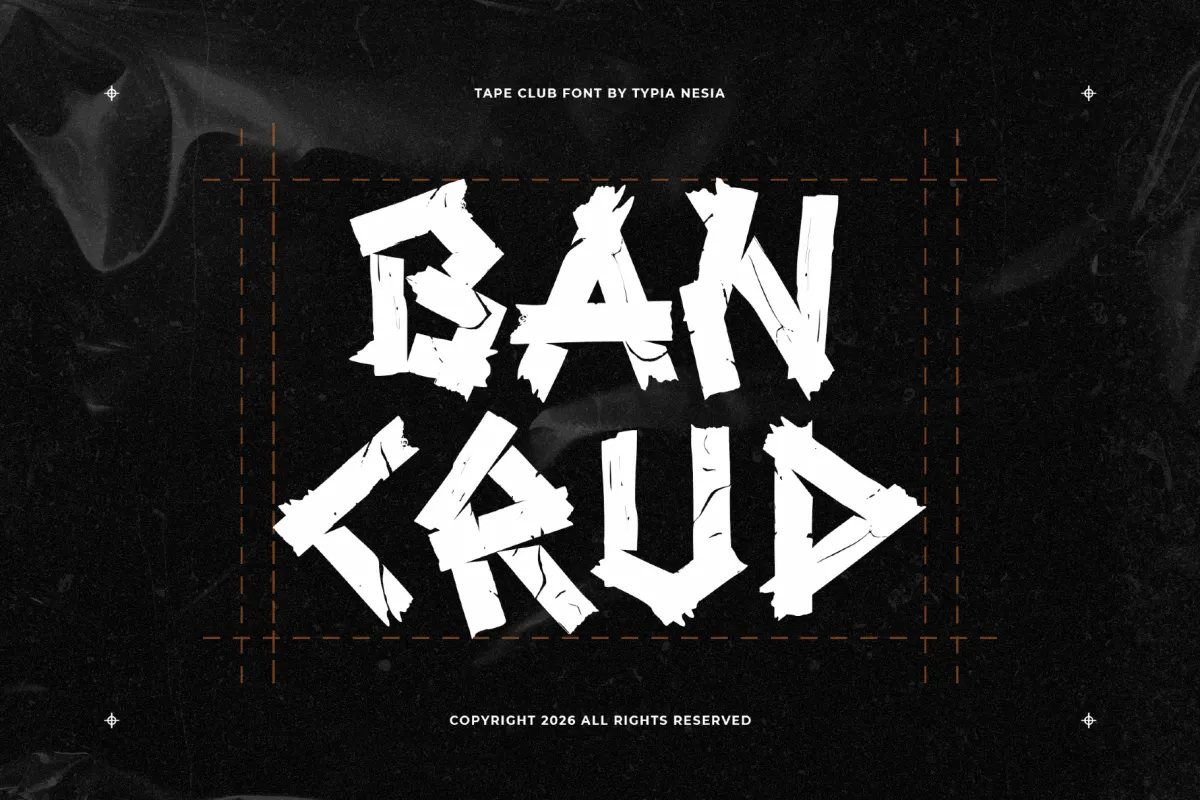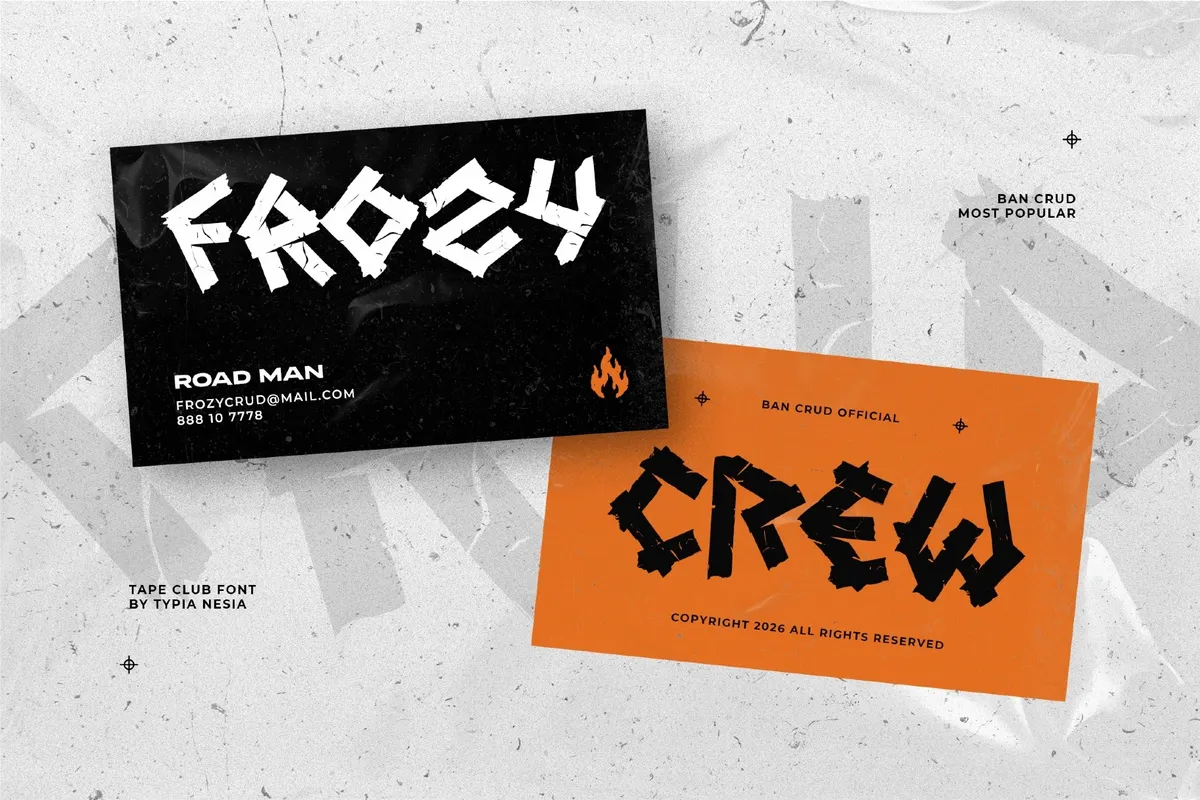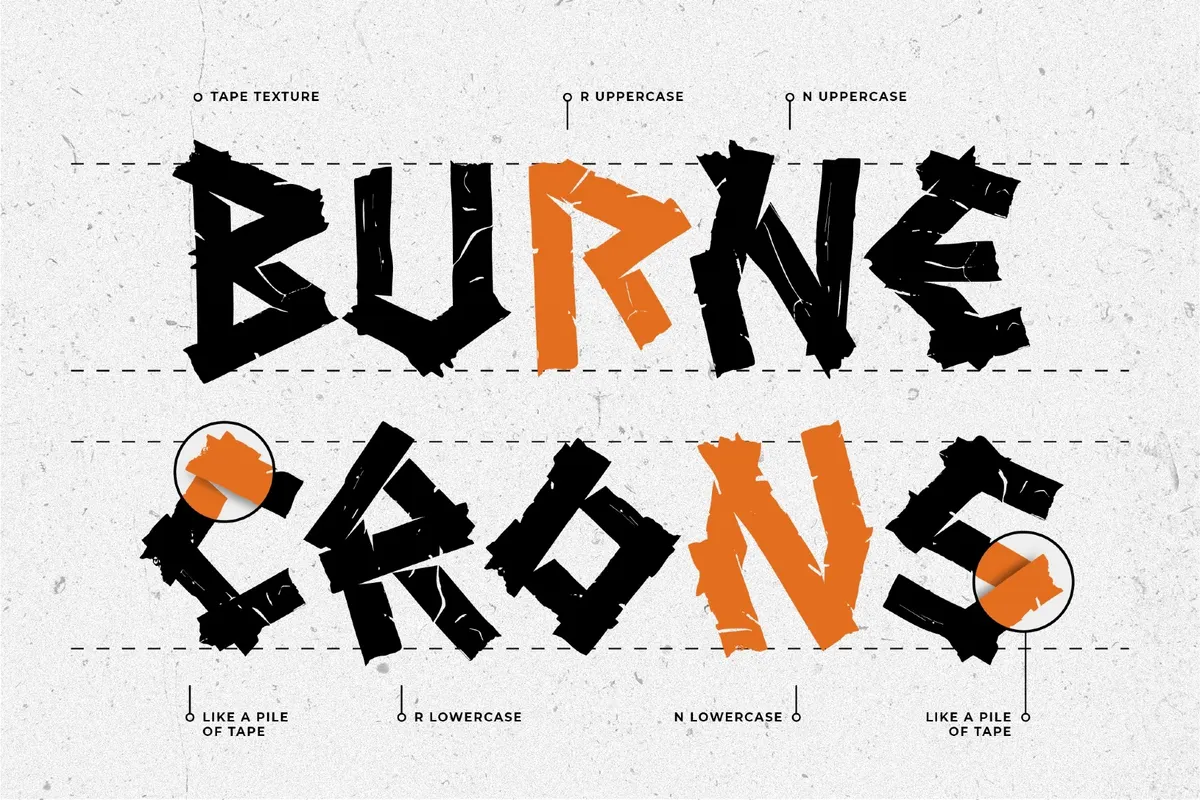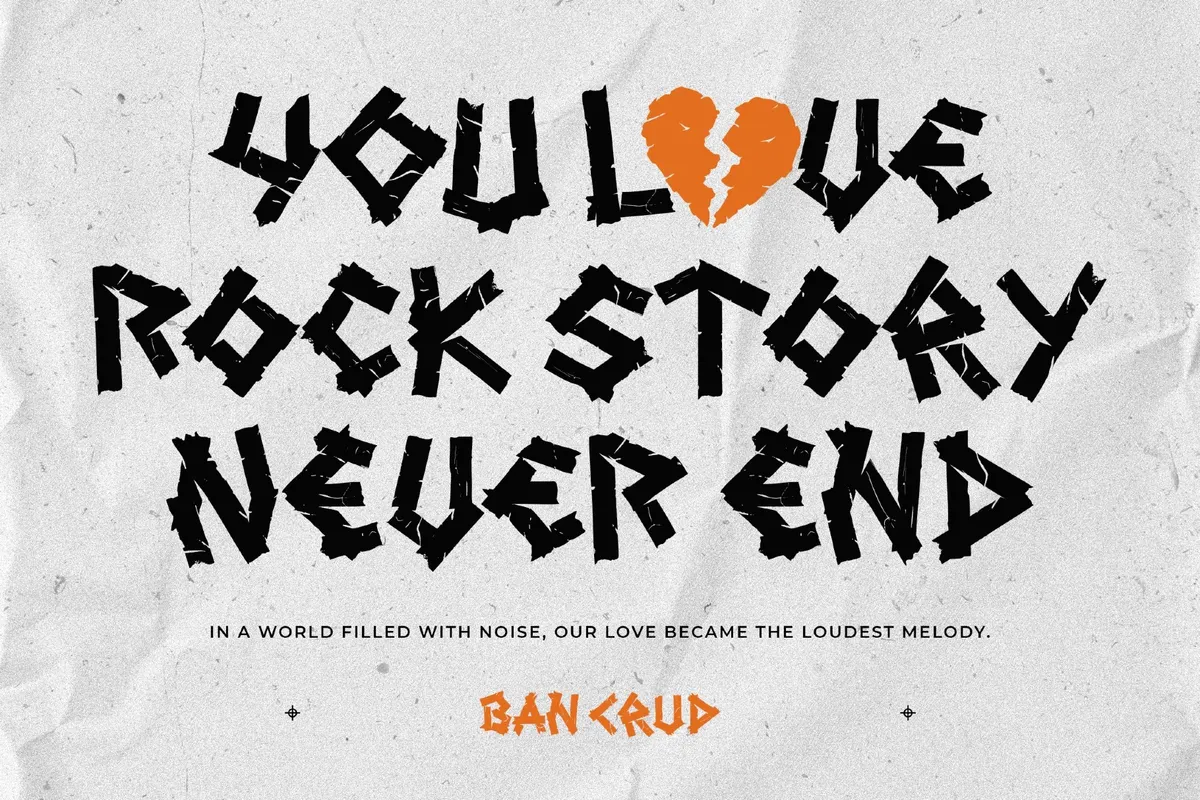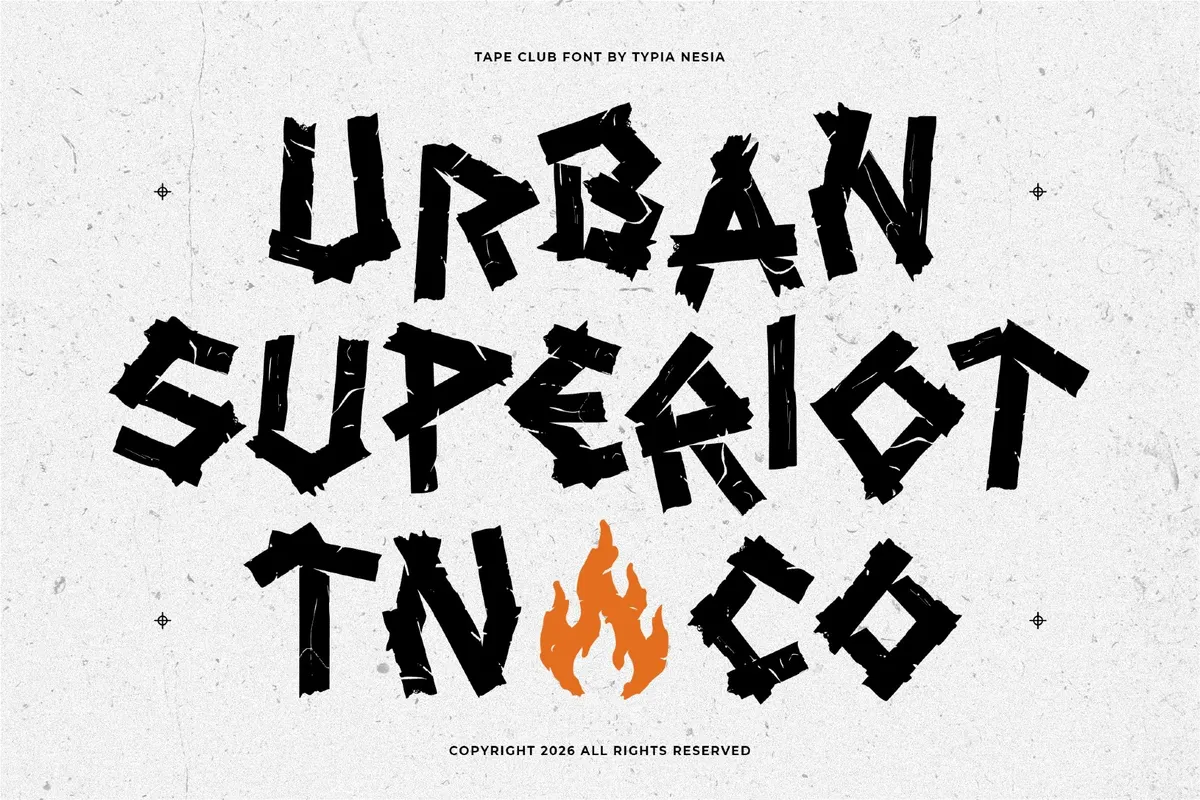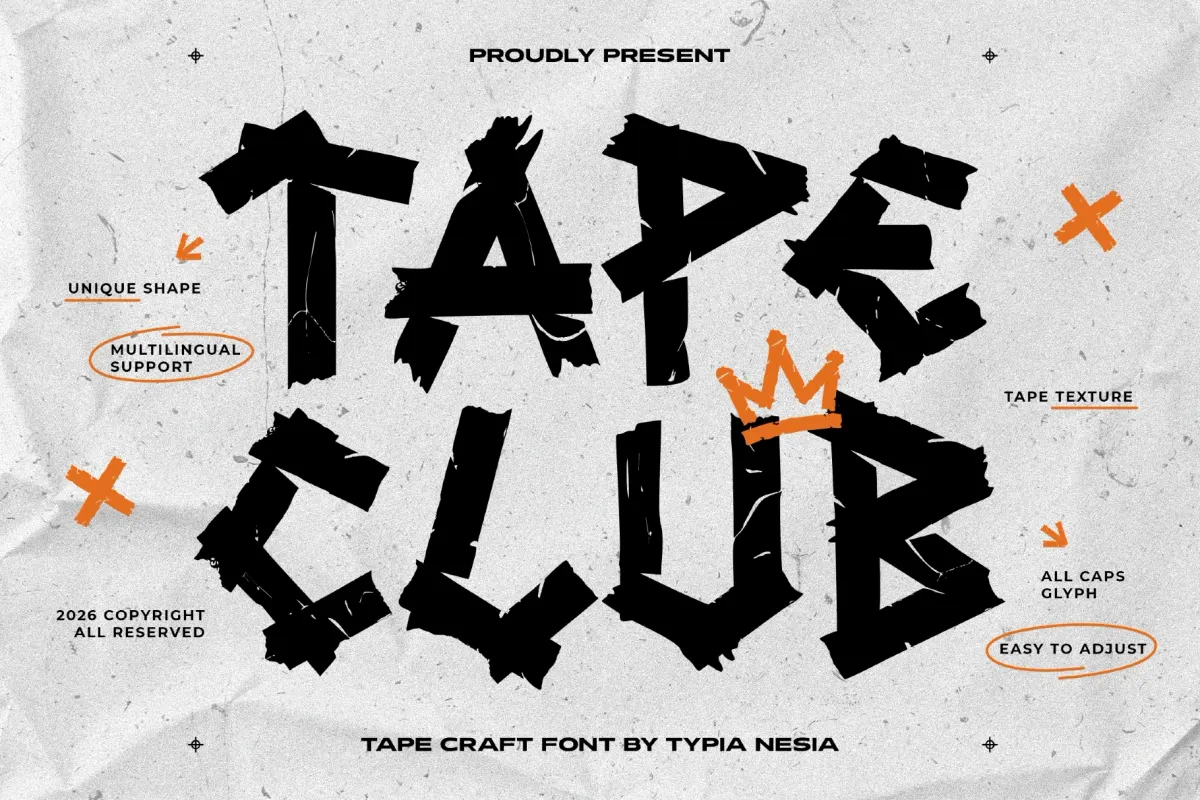
Tape Club - Craft Tape Display Font
Tape Club
Tape Club builds every letter from overlapping strips, closer to duct tape pressed onto a wall than drawn type — torn edges, crossed pieces, and uneven overlaps give each character a scrappy, hand-assembled look. The construction holds up well at poster scale, where the layered strips read as texture rather than clutter.
Use it for streetwear branding, skate and music merch, gig posters, album covers, packaging labels, and other raw, DIY-driven layouts.
- uppercase only;
- numerals, punctuation & symbols;